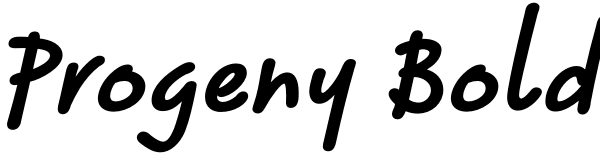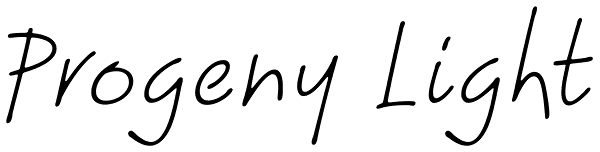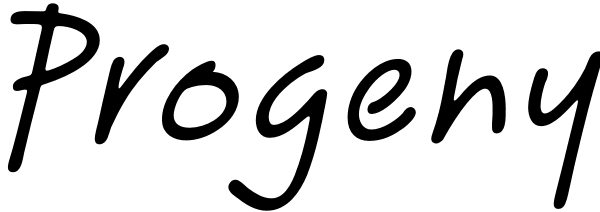
Progeny
Progeny is a single-stroke freehand informal script that began life as a logo for a fast food company. That logo was rejected but when I added a suite of swash caps and a few extra ligatures and my trademark underlines it all started to come...